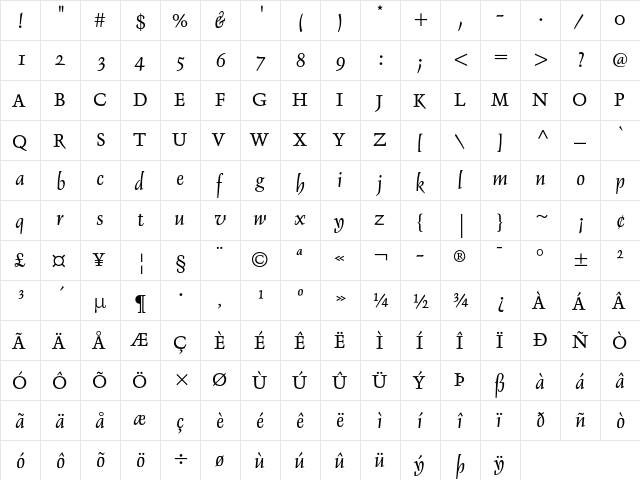
Delphin I Alt Font Preview
Delphin I Alt
Design Context for Delphin Typeface
Delphin offers clean, dependable letterforms without strong stylistic allegiance, making it a practical choice for designers who need flexibility.